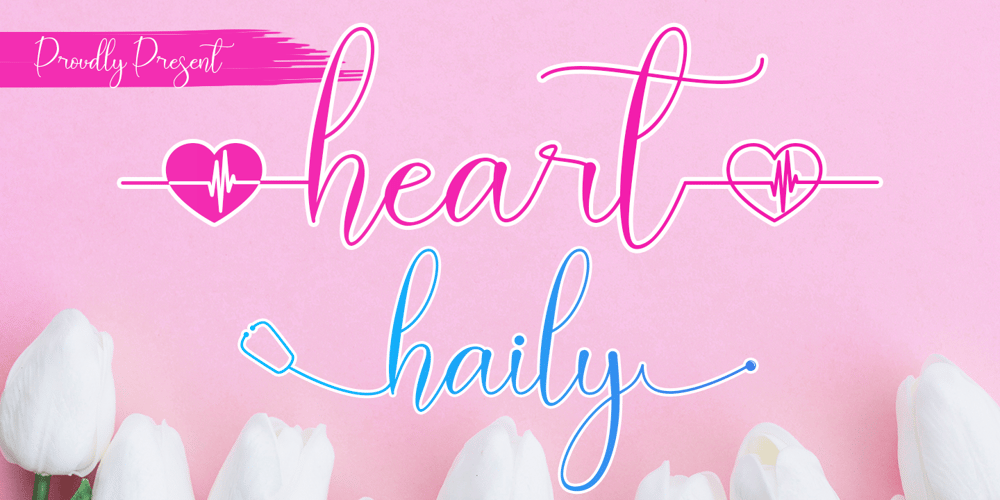
Heart Haily Font Family was designed by Mohamad Candirah and published by MC Creative. Heart Haily contains 1 styles and family package options. Heart Haily is a elegant and a natural script stylish script. Heart Haily Modern Calligraphy is perfect for branding projects, logo, wedding designs, social media posts, advertisements, product packaging, product designs, label, photography, watermark, invitation, stationery and any projects that need handwriting taste. What’s Included : · Standard glyphs· Ligature· Works on PC & Mac· Simple installations· Accessible in the Adobe Illustrator, Adobe Photoshop, Adobe InDesign, even work on Microsoft Word.· PUA Encoded Characters – Fully accessible without additional design software.· Fonts include multilingual support for; ä ö ü Ä Ö Ü ß ¿ ¡Thank you for your purchase! Hope you enjoy with our font!